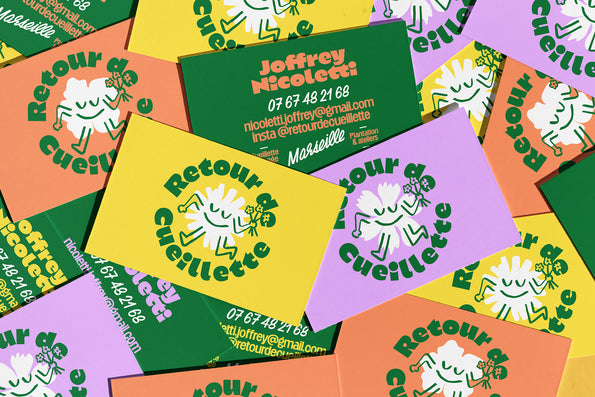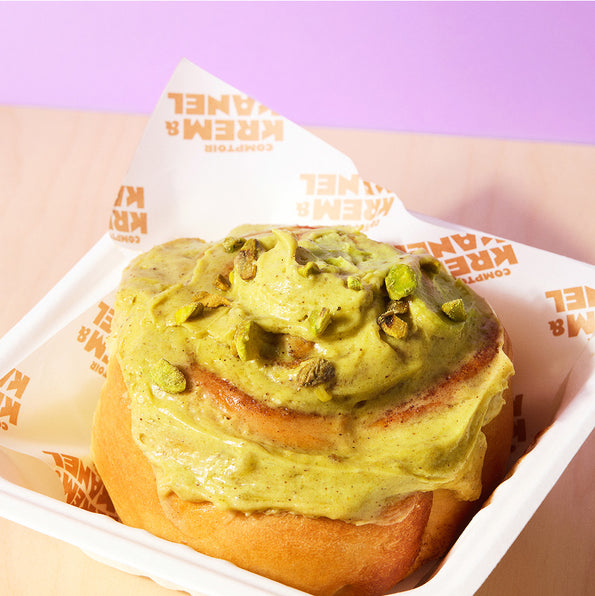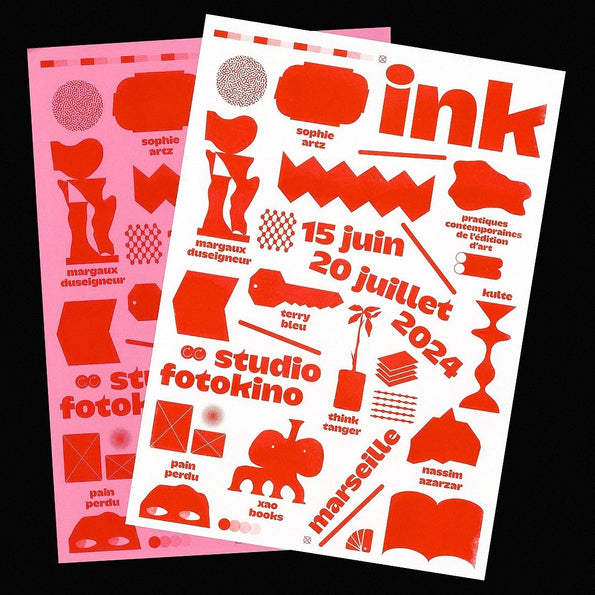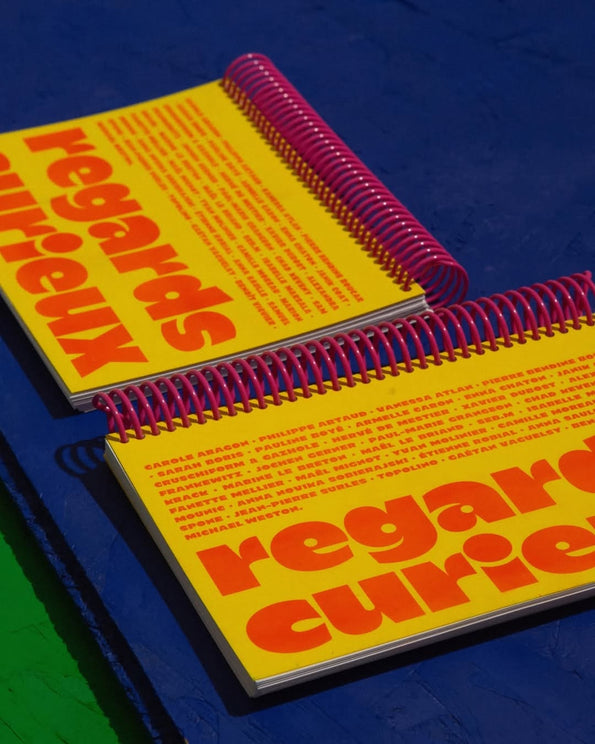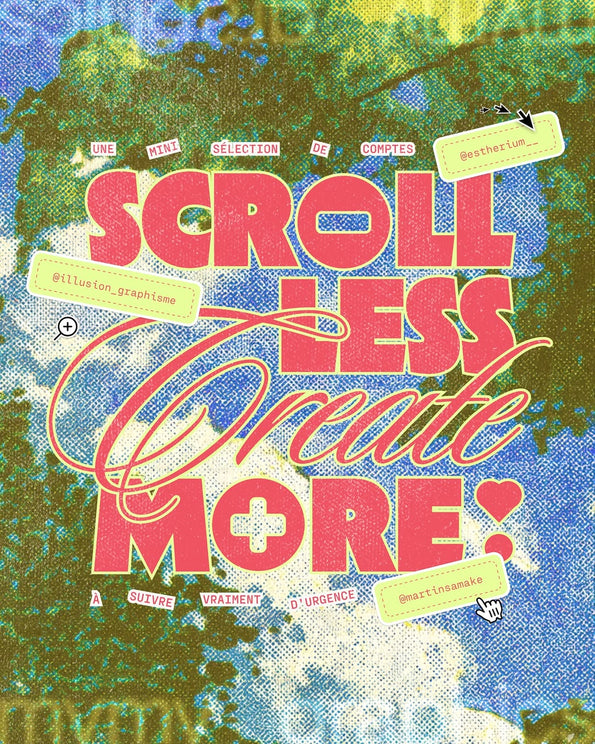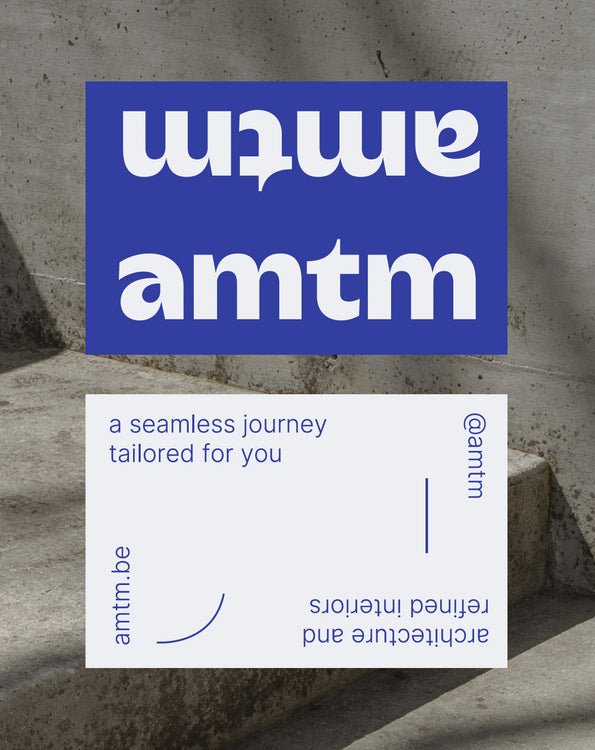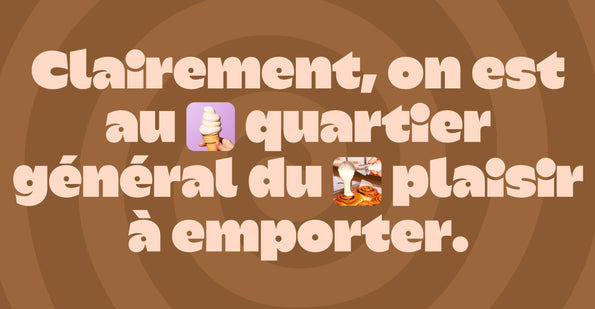
Kaio family
Namek's favorite font (6 styles + variable)
Features
Stylistic set 1
Stylistic set 2
Stylistic set 3
Circled numbers
Tabular figures
Numerator / Denominator
Superior / Inferior
Arrows
Aa
Kaio a new family of humanist-inspired sans serif fonts. Influenced by classics like “Gill Sans” and “Antique Olive”, but with a contemporary twist.
It takes its name from Master Kaio (KingKai or Kaiō-sama) of Dragon Ball Z, who embodies wisdom and power, but is also zany and grotesque. The generous and piquant shapes of the font evoke the character’s personality.
Available in 6 weights and a Display version, with more extreme shapes and round counter-forms, called “Krilin”.